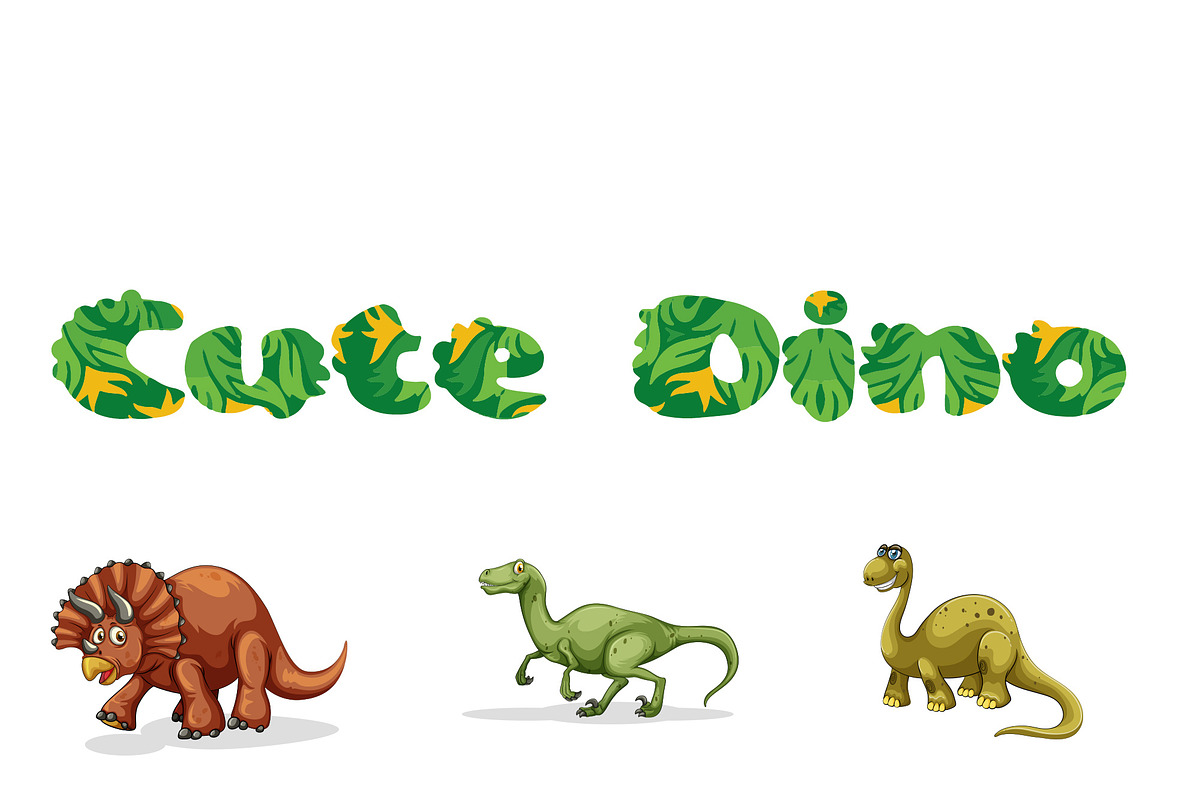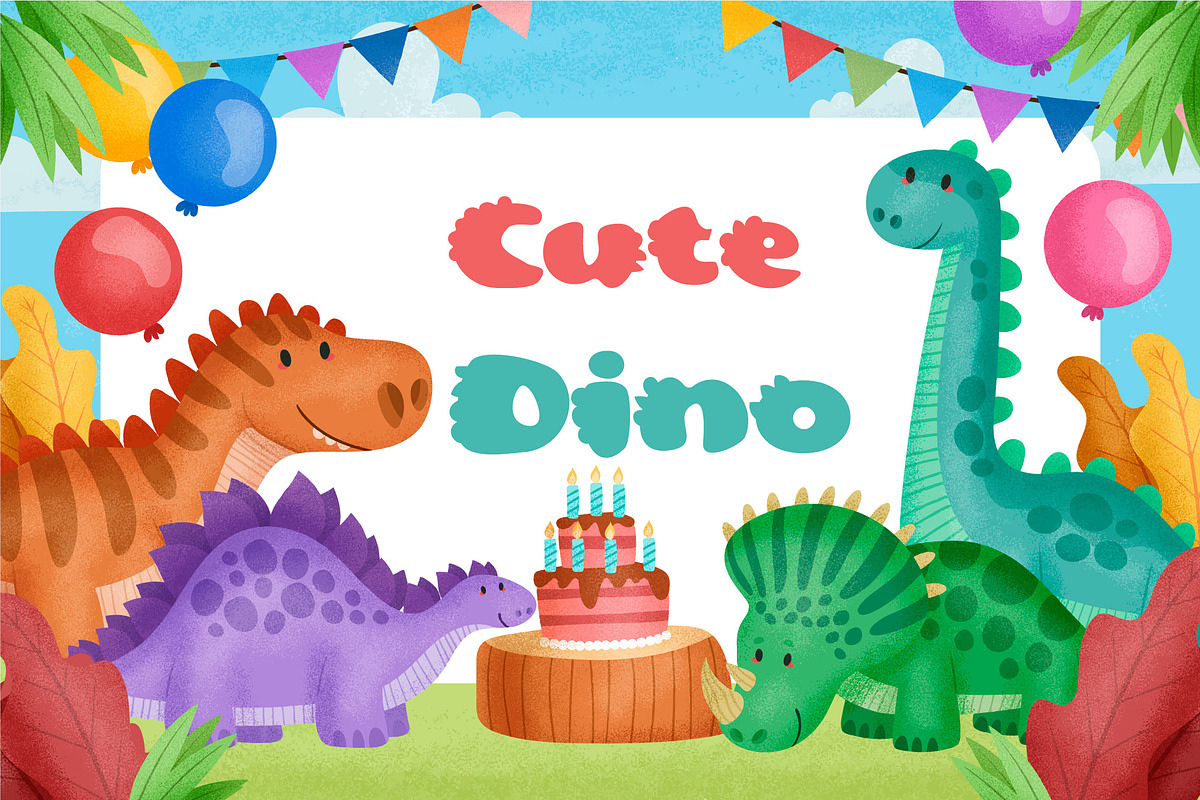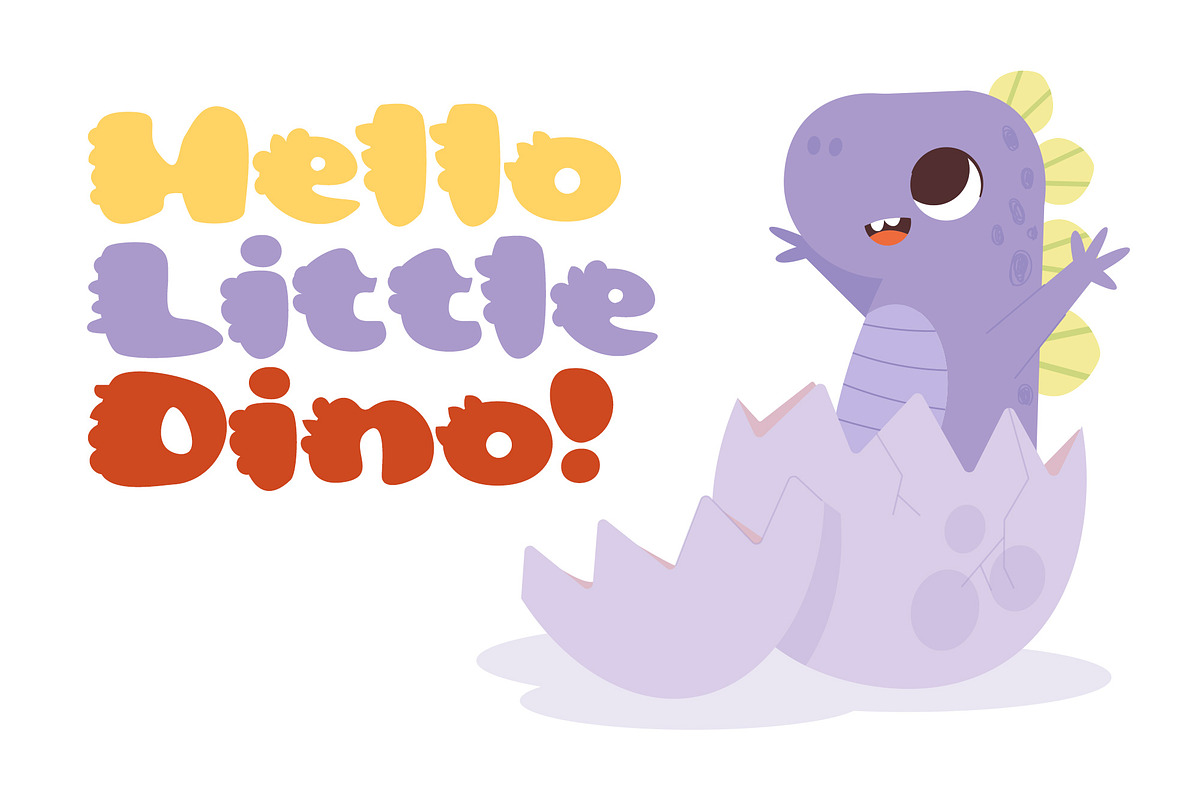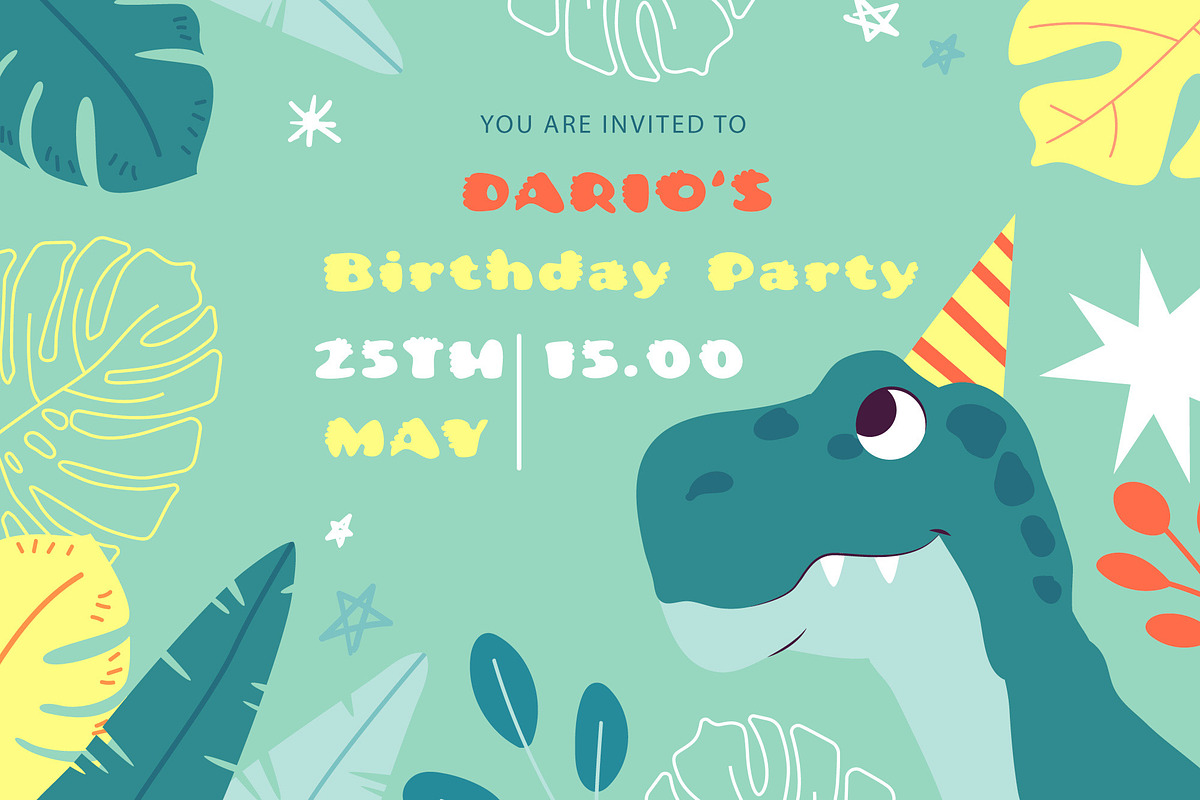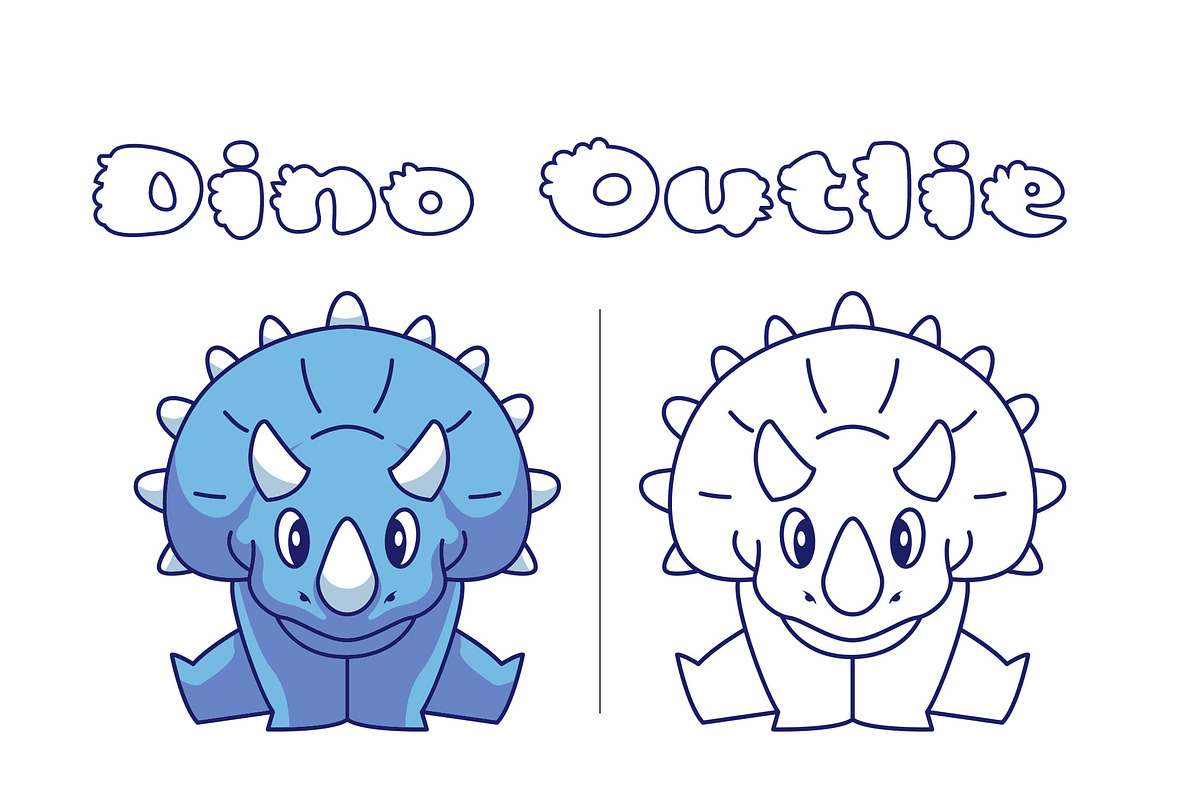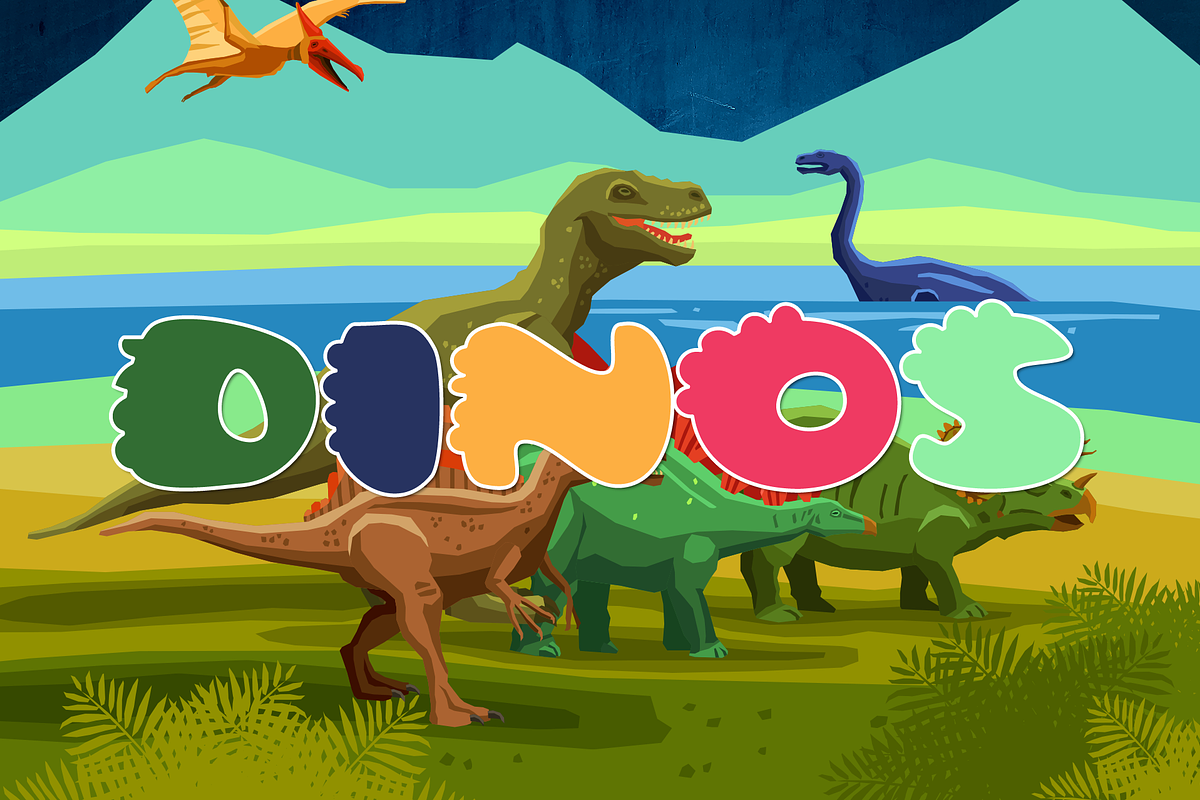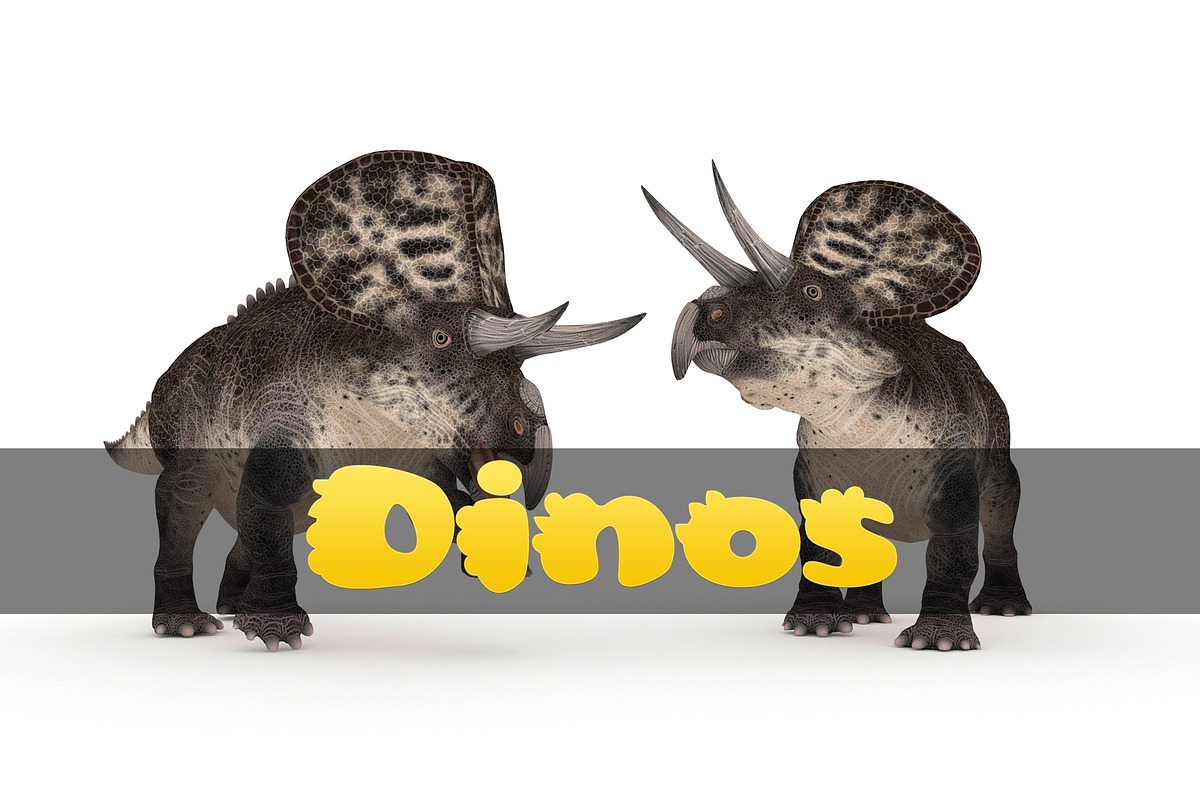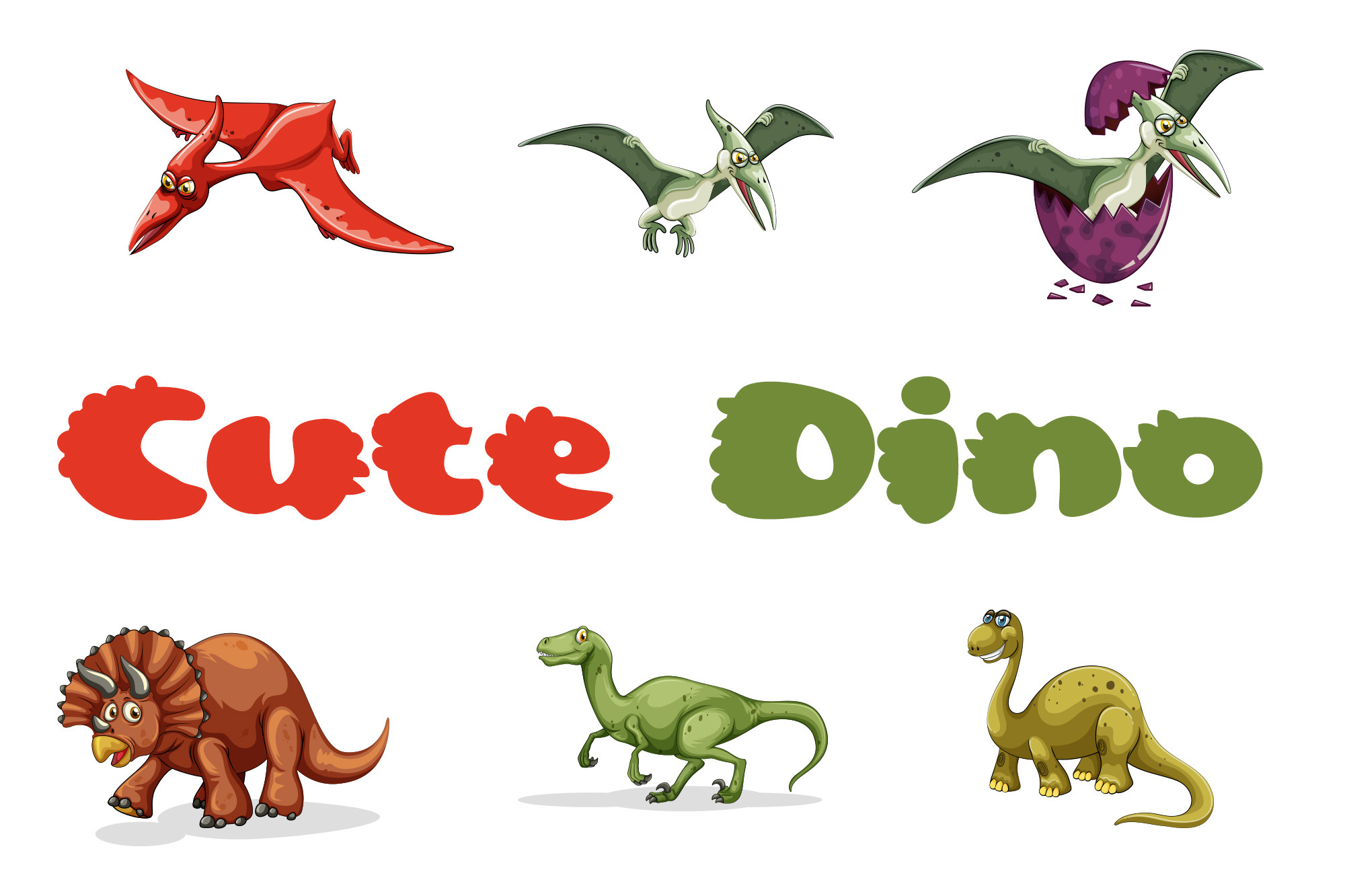
Cute Dino Dinosaur Font
Cute Dino is a playful display font, perfect for children’s projects and designs. With chunky and happy characters, this font is the best choice for children’s books, name tags, and more!
It contains 3 font variations Cute Dino Regular, Cute Dino Outline and Cute Dino Color Font.